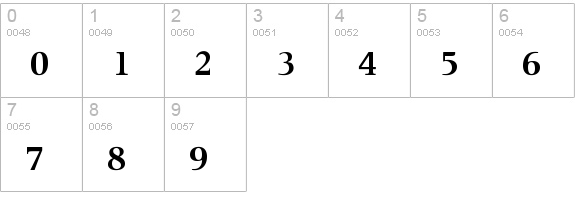
Apollo-SemiBold is a sub-bold, structured variant in the Apollo typeface family \xE2\x80\x94 well suited to sub-headlines and emphasised passages.
The Apollo-SemiBold font is a modern and stylish typeface that exudes confidence and sophistication. Its bold and sleek design makes it perfect for a wide range of projects, from branding to editorial design. The strong, clean lines of the font give it a timeless appeal that is sure to make your text stand out. What sets Apollo-SemiBold apart is that it is completely free to download at FontsMarket.com. This means that you can access this high-quality font without any cost, making it an excellent choice for designers and creators looking to elevate their work without breaking the bank. Whether you're working on a poster, website, or any other design project, Apollo-SemiBold is a versatile font that will add a touch of elegance and professionalism to your work. Download it for free today and see how it can take your designs to the next level.